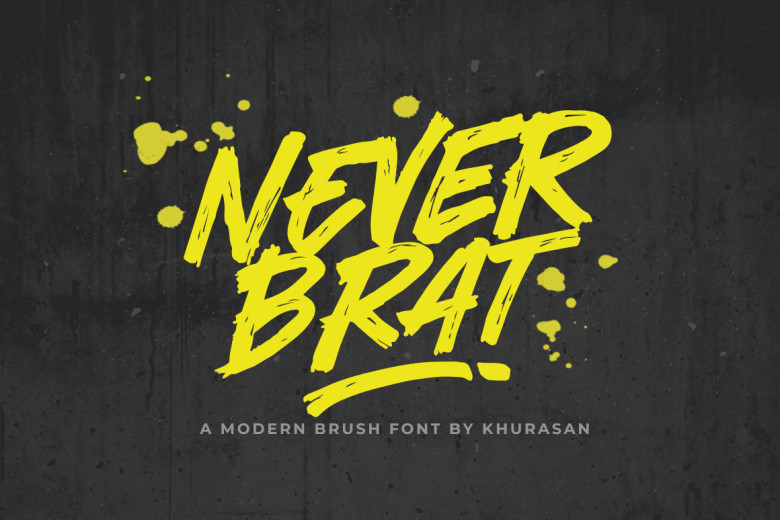
Never Brat Font
Never Brat is a modern script Brush Font perfect for posters, logos, magazines, book covers, banners, and many more! Get this quirky display font and use it to create lovely design!
Never Brat Brush Script Font